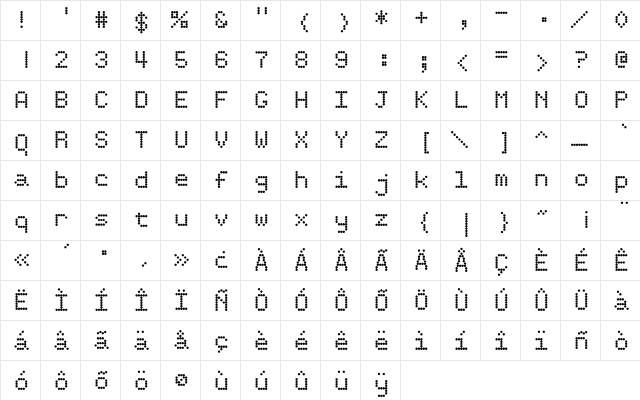
Dottie Regular
Design Context for Dottie Typeface
Dottie is rooted in pixel-grid construction, making it a natural fit for game UI, retro computing aesthetics, and digital nostalgia projects.
A natural choice for retro game titles, chiptune music branding, 8-bit UI, and digital nostalgia projects.
Pro Tip: Pair Dottie with flat colour palettes and simple geometric UI elements to reinforce its digital aesthetic.